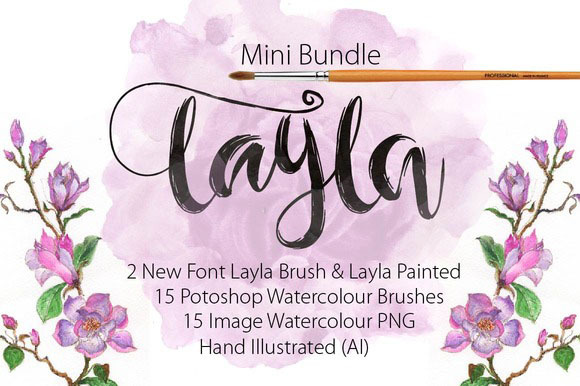
layla is a great font hand lettering brush, there are two different fonts, font layla brush and font layla painted, very good for your product advertising, invitation, brocure, poster, etc
Layla FONT BRUSH
- uppercase
- Numeral
- Accent
- ligature
- Stylistic Sets
Layla FONT PAINTED
- Numeral
- Accent
- ligature